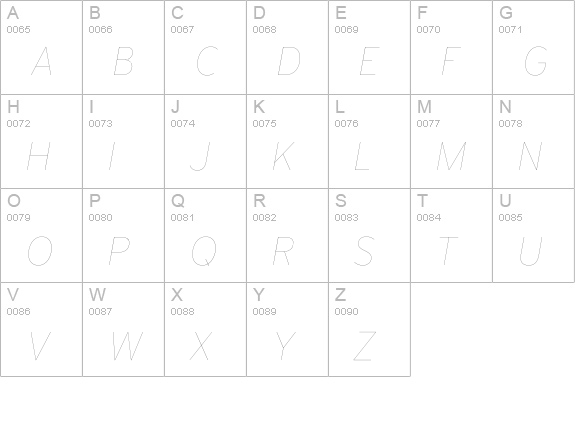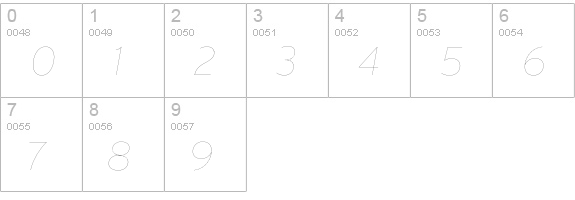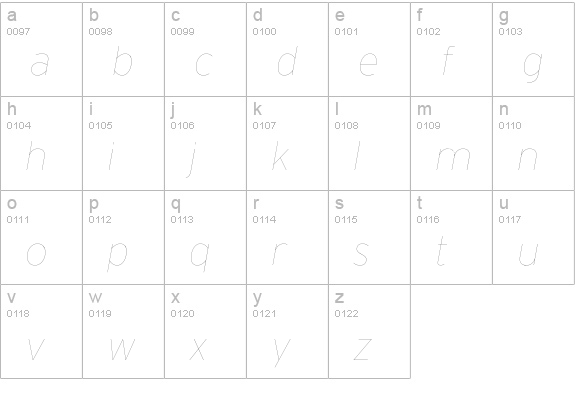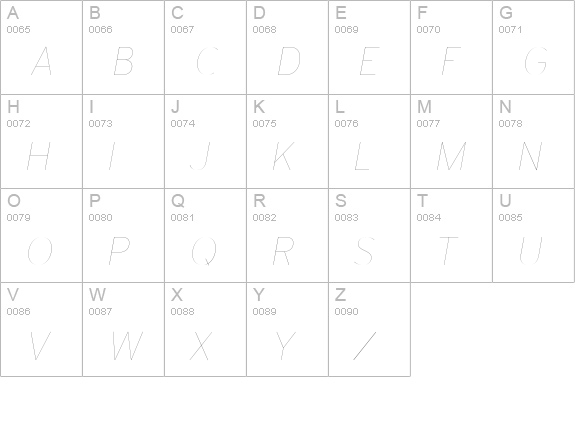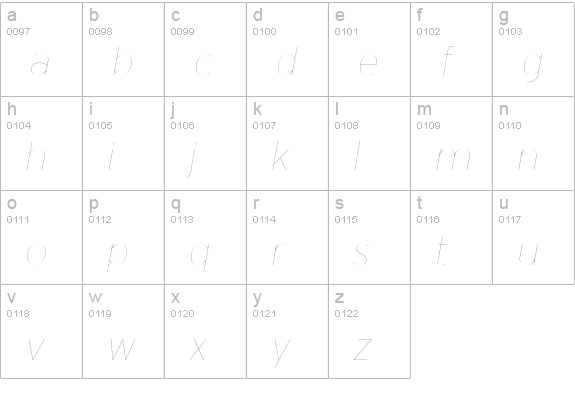
Interstate Hairline Italic is an exceptionally fine, almost invisible, italic variant in the Interstate typeface family \xE2\x80\x94 well suited to high-end editorial, fashion, and luxury display use.
Introducing Interstate Hairline Italic, a stunning font that exudes elegance and sophistication. Its delicate and slender strokes effortlessly capture attention, making it the perfect choice for projects that require a touch of refinement. This font boasts a unique blend of modernity and classic appeal. The italicized design adds a sense of dynamism and flair, making it ideal for fashion editorials, luxury branding, wedding invitations, and more. Its versatility allows it to seamlessly adapt to any creative endeavor, enhancing the visual impact and leaving a lasting impression. One of the most remarkable aspects of Interstate Hairline Italic is that it is freely available to download at FontsMarket.com. This means that you can effortlessly access this exceptional font and elevate your designs without any cost. Whether you are a professional graphic designer or a passionate hobbyist, this font offers a valuable resource to enhance your creative journey. The attention to detail in Interstate Hairline Italic is truly remarkable. Each letter has been meticulously crafted to ensure flawless legibility and a harmonious flow. The slender curves and graceful descenders create a sense of rhythm and balance, resulting in a captivating visual experience. This font is not only visually stunning but also highly functional. It is compatible with various design software and can be seamlessly integrated into your projects. Whether you are designing a logo, creating a website, or crafting a print advertisement, Interstate Hairline Italic will effortlessly elevate your work and add a touch of elegance. In conclusion, Interstate Hairline Italic is a remarkable font that combines modernity and sophistication. Its distinctive italic design and careful attention to detail make it a valuable asset for any creative project. And the best part is, it is freely available to download at FontsMarket.com. So, don't miss out on this opportunity to enhance your designs and captivate your audience with the exquisite beauty of Interstate Hairline Italic.